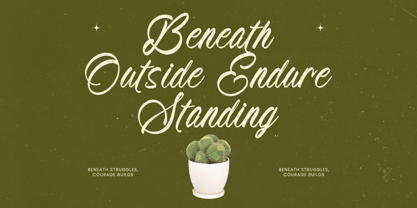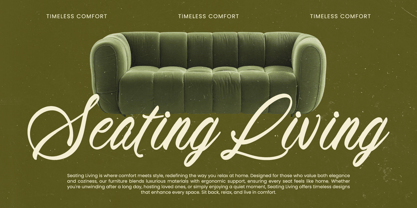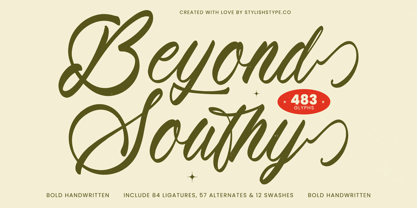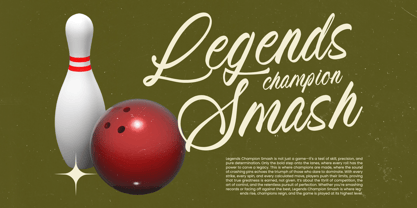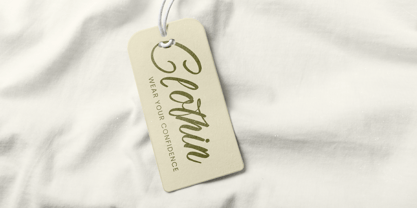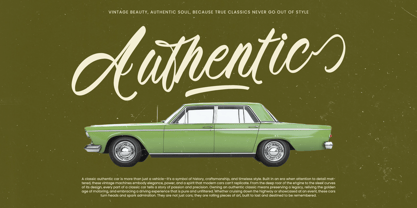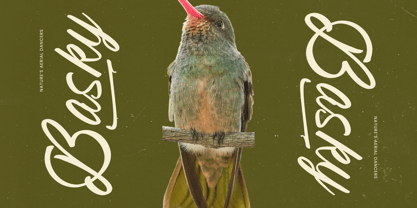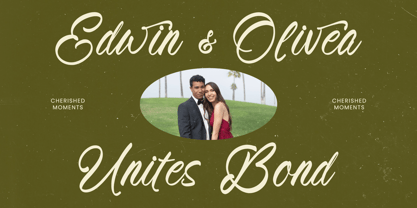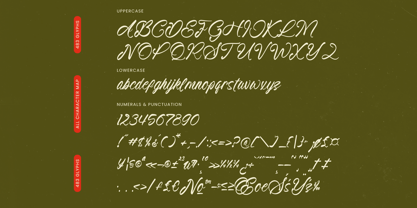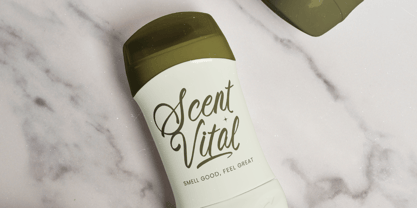
Beyond Southy
The Beyond Southy Font Family was designed by Heru Utama Putra and published by Stylishtype Studio. Beyond Southy contains 2 styles and family package options.
Beyond Southy - Bold Handwritten Font , from Stylishtype, Suitable for any projects such as: logos, branding projects, homeware designs, product packaging, mugs, quotes, posters, shopping bags, t-shirts, book covers, name card, invitation cards, greeting cards, label, photography, watermark, special events, and all your other luxury and beautiful projects that need a Luxury Script taste.